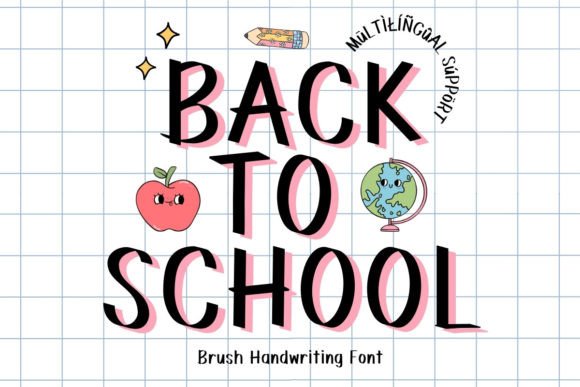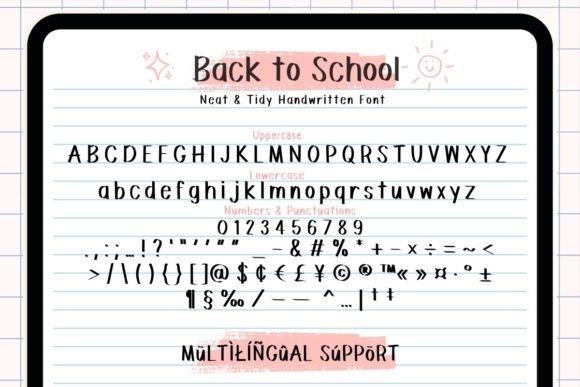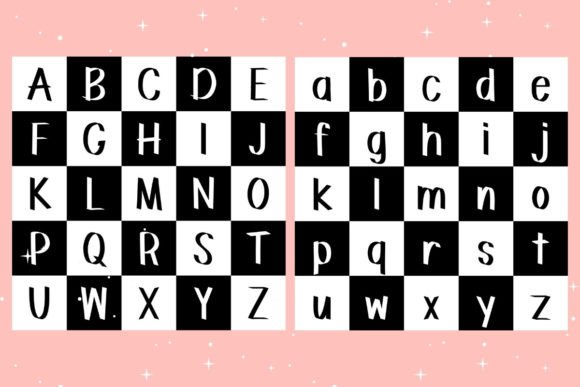
Back To School Font: A Cute Display Font for Cricut Crafts
About the Back to School Font
Make a bold statement with Back to School Font, a powerful and memorable font. Back to School Font: Neat and Tidy Brush Handwriting for All Your Projects
Introducing “Back to School,” a delightful brush handwriting font that brings a touch of neatness and charm to every project. Perfect for school assignments, student notes, teacher notes, digital planners, social media content, diaries, and more, “Back to School” offers a clean and organized style that enhances the readability and attractiveness of your writing.
This font’s friendly, approachable personality makes it ideal for projects targeting a younger audience, such as children’s books, educational materials, or branding for schools and youth organizations. It works well in headlines, short paragraphs, and social media posts where its playful charm is an asset. However, avoid using it for large blocks of text or UI elements; its informal nature compromises readability in extended use.
Pair “Back to School” with a clean sans-serif like Open Sans for body text to create a balanced design. For a more sophisticated feel, consider pairing it with a classic serif font like Garamond or a geometric sans-serif like Futura. These pairings provide a strong contrast, highlighting the font’s unique brush script character without overwhelming the overall design.
Back to School Font Usage Examples
Back to School Font Example